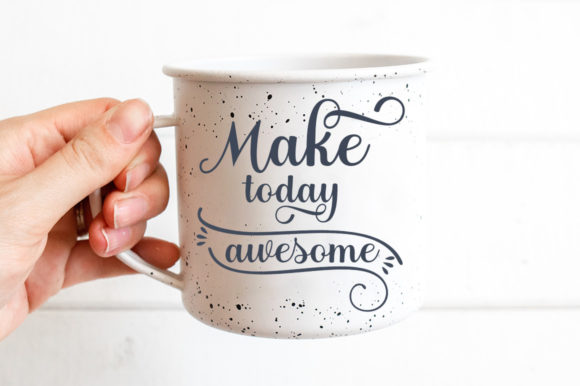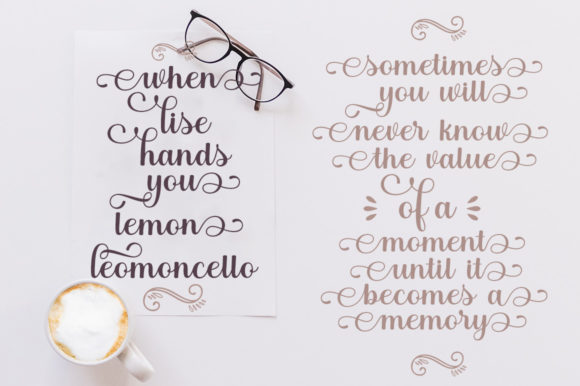
Marcella Script Font
db-ku.com - Script & Handwritten -- Marcella Script is a gorgeous and stylish script font. It maintains its classy calligraphic influences while feeling contemporary and fresh. This font is PUA encoded which means you can access all of the glyphs and swashes with ease!